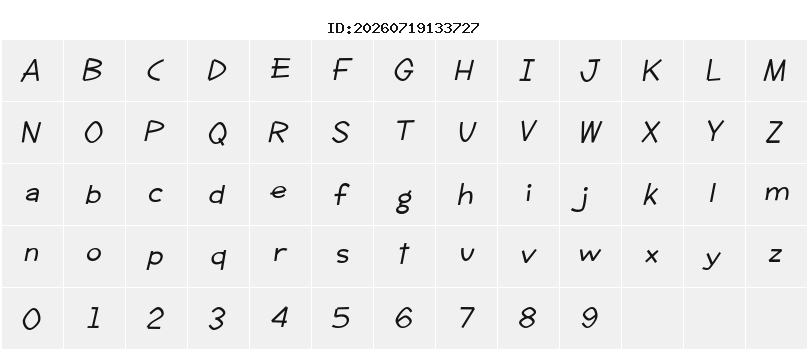
Clever Duke BTN Slick Preview
• Font Name: Clever Duke BTN Slick
• Font Style: Oblique
• Font ID: Clever Duke BTN Slick Oblique
• Full Font Name: Clever Duke BTN Slick Oblique
• PostScript Name: CleverDukeBTNSlickOblique
• Character Count: 264
About Clever Duke BTN Slick.ttf
Clever Duke BTN Slick.ttf is a modern, elegant sans-serif font designed for ultimate readability and visual harmony. Perfect for branding, headlines, web design, and print materials.